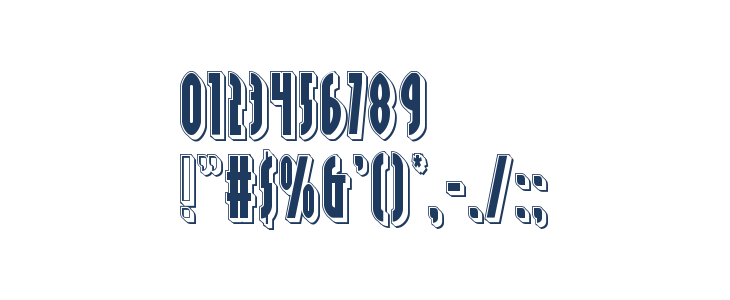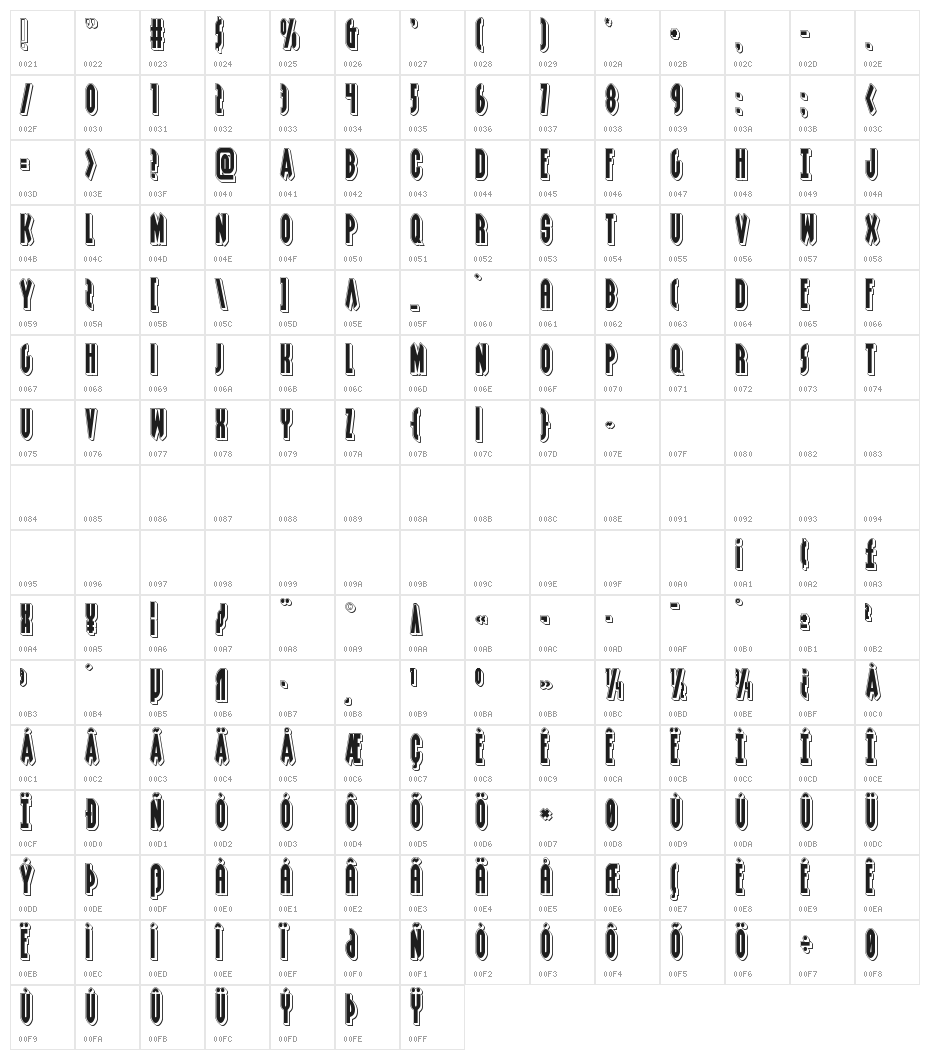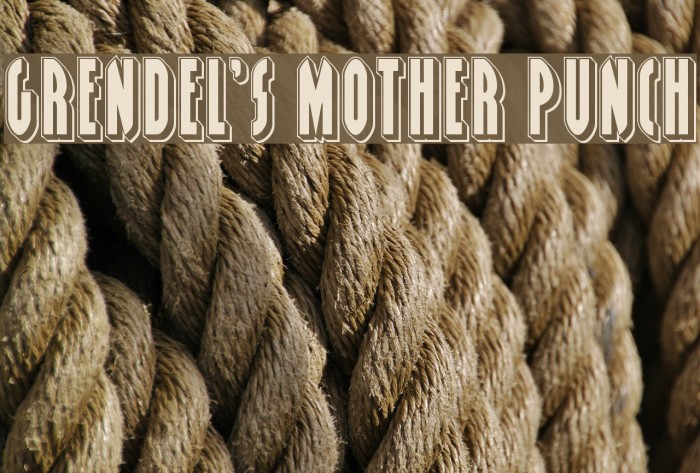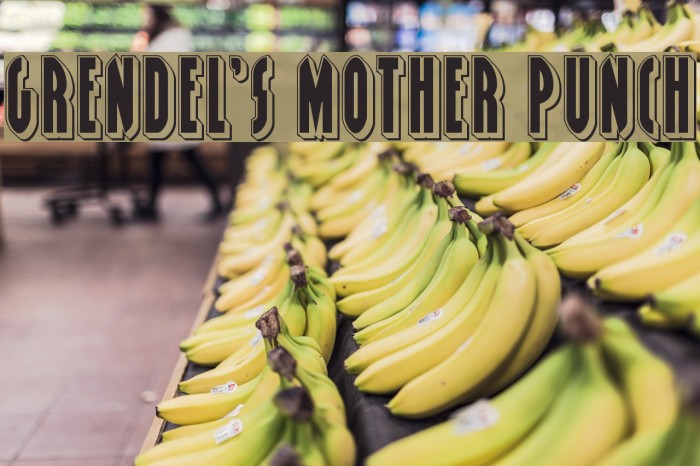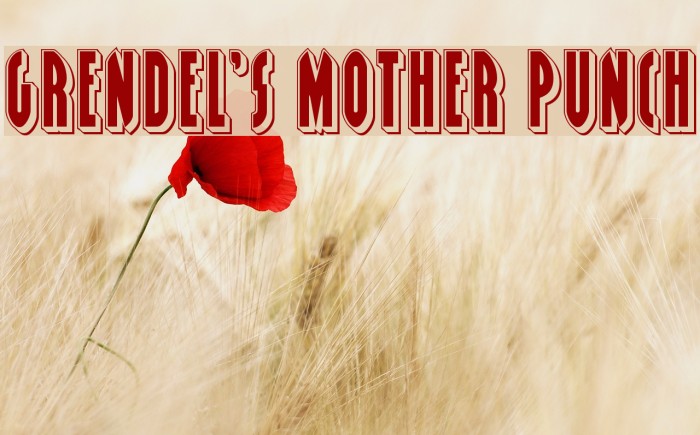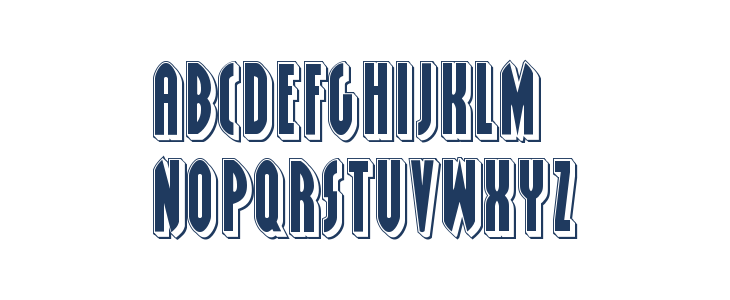
Grendel's Mother Punch Font
Grendel's Mother Punch Description
This font features a bold and striking design with a three-dimensional effect, achieved through a shadowed outline that gives depth to each character. The uppercase letters are tall and imposing, with a strong vertical emphasis and slightly condensed proportions. The lowercase letters maintain the same boldness, ensuring consistency throughout the typeface. Numbers and special characters are crafted with the same attention to detail, making them stand out with their unique style. The font's overall appearance is both modern and decorative, making it suitable for eye-catching designs.